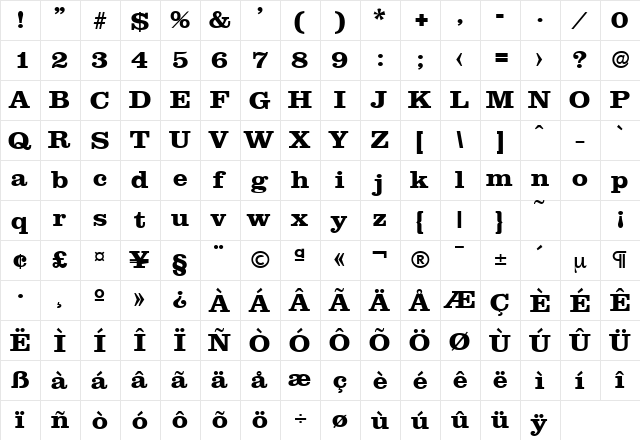
Clarendon-Serial-ExtraBold Regular Font Preview
Design Context for Clarendon-Serial-ExtraBold Typeface
Clarendon-Serial-ExtraBold combines the readability of serif typography with the visual weight of a slab construction, resulting in a typeface that feels both authoritative and approachable. The heavy weight commands attention and anchors typographic hierarchies.
Suited to magazines, political campaign materials, bold packaging, and any setting where authority matters.
Pro Tip: Use Clarendon-Serial-ExtraBold for headlines and subheadings where its slab serifs can make an impression. It also holds up well in mid-size body copy thanks to its sturdy construction.